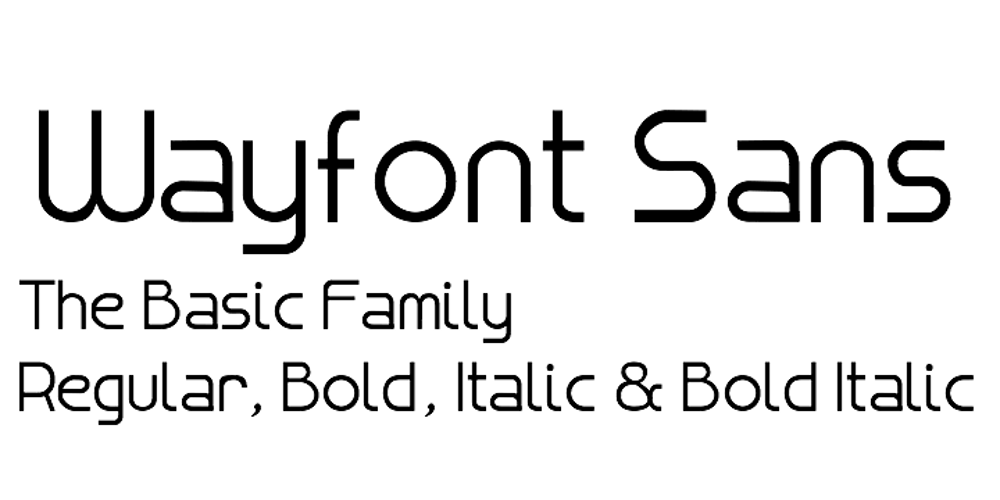
Wayfont Sans
Wayfont Sans font
Wayfont Sans Font Family was designed by Carlos Colomina and published by Bull’s-eye Soft. Wayfont Sans contains 7 styles and family package options. Design of this typography is based on straight strokes and standard curve strokes like those of test road tracks. Its design displays straight and balanced strokes showing strength and stability; and standardized curves show flexibility and smoothness, providing a relaxing reading. Therefore this font is ideal for corporate internal use, blogs, architecture webs, etc. A new good alternative for Arial and similar fonts. The most similar font to this one by comparing its style characteristics is Design Systems A-300.